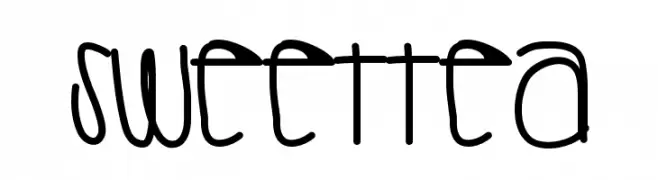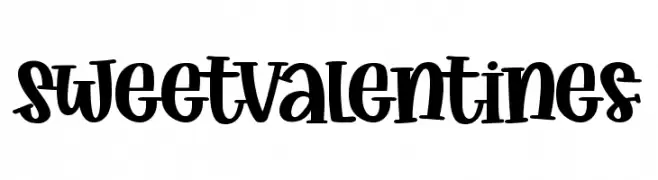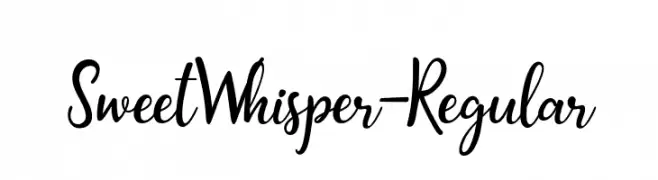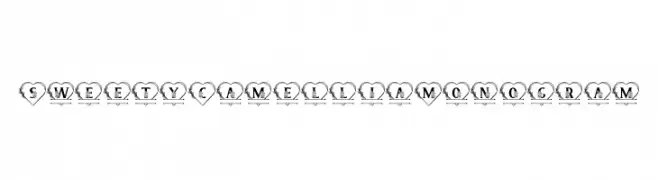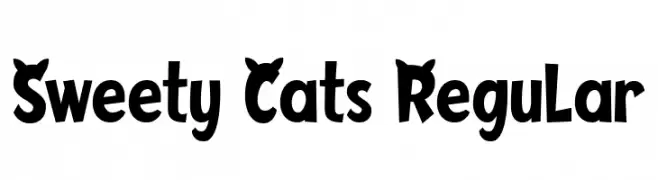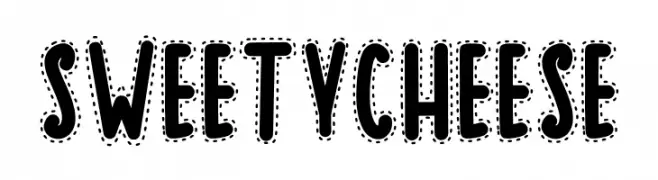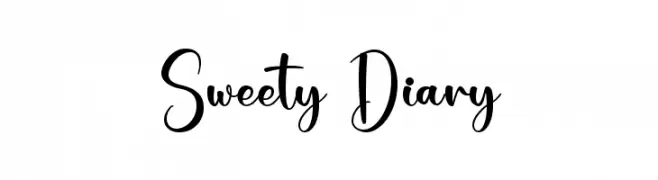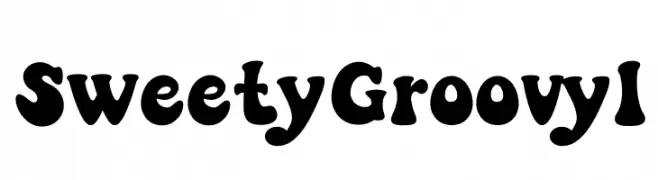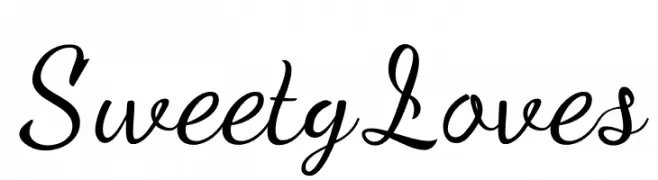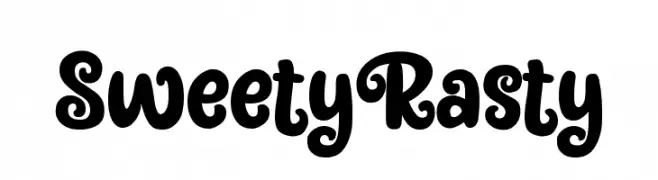
A playful, handwritten font with a whimsical and friendly style.
A playful, bold font with a hand-drawn, whimsical style.
An elegant, flowing script font with artistic flourishes and smooth connections.
A playful and elegant script font with flowing, connected letters.
A playful, hand-drawn font with rounded edges and a friendly style.
A playful, hand-drawn font with rounded edges and a friendly vibe.
A playful, handwritten font with smooth, flowing strokes and a casual style.
A bold, playful script font with flowing, cursive letterforms.
A playful and elegant handwritten script font with medium contrast.
A decorative font with letters inside heart shapes, featuring floral embellishments.
A playful, bold font with rounded, whimsical characters and a lively appearance.
A playful, bold font with dotted outlines and a cartoonish style.
Playful handwritten decorative font.
A playful, retro-inspired font with bold, rounded characters.
A whimsical and elegant script font with decorative swirls and loops.
A playful and bold script font with smooth, flowing curves.
A playful, whimsical handwritten font with tall, narrow letters and artistic flair.
A charming and elegant script font with smooth, flowing lines.
A playful, bold handwritten font with a whimsical and friendly style.
A playful, handwritten font with tall, narrow letters and a casual elegance.
A bold, playful font with whimsical flourishes and rounded characters.
A playful and whimsical script font with bold, flowing strokes and decorative swirls.
A playful, handwritten font with a bold, rounded style.
A playful, handwritten font with tall, narrow letters and smooth, rounded strokes.
A playful, hand-drawn font with bold, rounded characters.
A playful, handwritten font with smooth curves and a casual style.
A playful and elegant handwritten script font with medium contrast.
A playful, elegant handwritten script with flowing, cursive strokes.
An elegant and flowing script font with delicate, intricate letterforms.
A playful and elegant handwritten script font.
A charming, playful script font with elegant, flowing letterforms.
A playful and elegant script font with a handwritten style and medium contrast.
A bold, impactful font with thick strokes and slightly rounded edges.